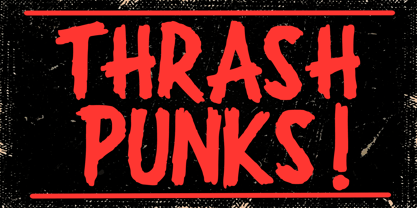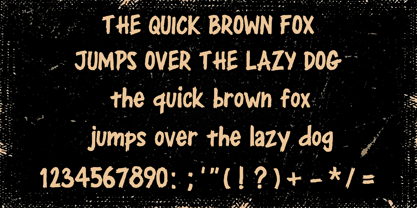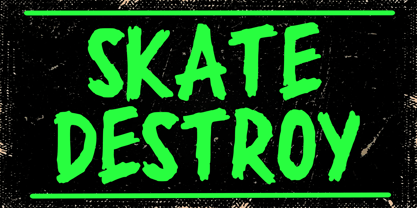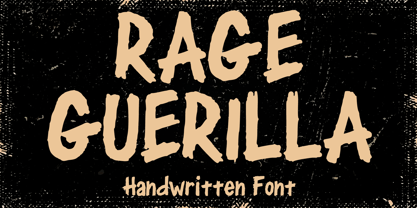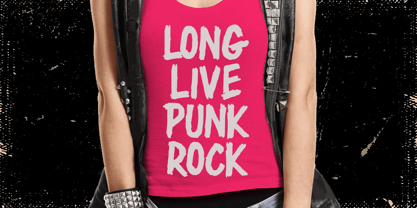
Rage Guerilla
by Mvmet
The Rage Guerilla Font Family was designed by Gabriel Valentinus and published by Mvmet. Rage Guerilla contains 1 styles. More about this family
Introducing Rage Guerilla, a strikingly edgy and urban display font steeped in punk, grunge, and rock band aesthetics. Inspired by the throbbing heartbeat of skateboarding and heavy music scenes, this font embodies an unsanitized, rebellious streak. With Rage Guerilla, you gain effortless expressiveness for attention-demanding designs. It's perfect for cinematic posters, pulsating music covers, unique t-shirt graphics, immersive merchandise, and more. Embrace its distinctive style, and let Rage Guerilla invigorate your design projects with undeniable coolness!
Designers: Gabriel Valentinus
Foundry: Mvmet